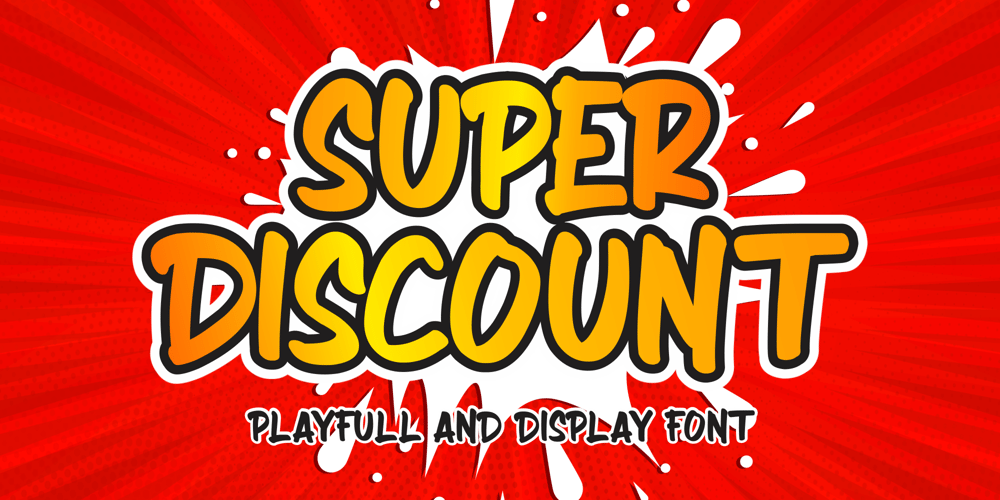
Super Discount Font Family was designed by SU KASIH and published by Mozatype. Super Discount contains 1 styles and family package options. Hello there, Proudly presenting SUPER DISCOUNT. It is stylish marker font. It’s in two styles: Regular and Bold.SUPER DISCOUNT was designed to make logotype and lettering for your brands. And it’s would perfect for t-shirts/ apparel, promotional materials, sports, music festival, quotes, special events, or anything.What’s Included : Works on PC & Mac Easy to use ( Installations ) Easy Convert to Webfont Compatibility Windows, Apple, Linux, Cricut, Silhouette, and Other cutting machines Thanks for downloading, and I hope you enjoy it!